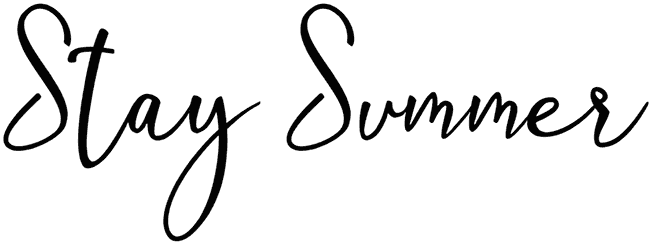
Let’s be blunt, this is an obvious fact that everybody likes cursive fonts. For example, Stay Summer is a handwritten font that gives you a pleasant feeling, which is very important if you are working on gift cards, commercials, branding, and packaging.